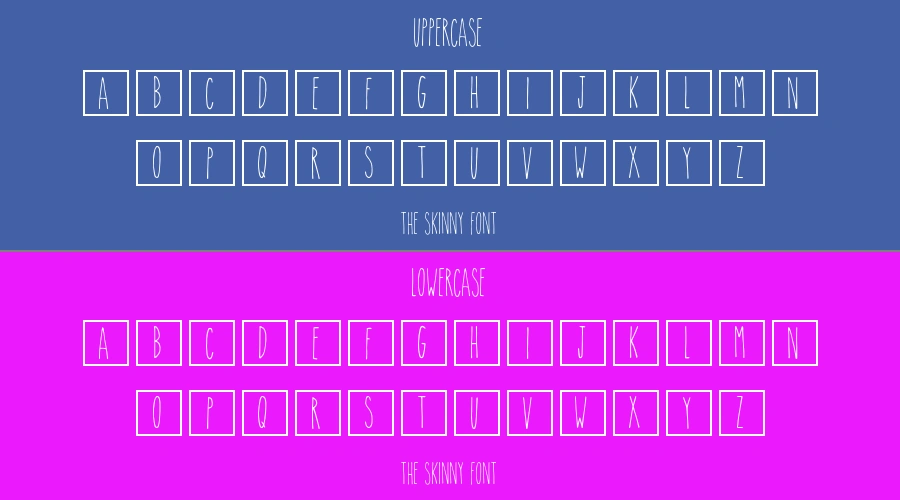
About The Skinny Font
Designed with precision, The Skinny Font merges pressure variations with visual appeal in every character. This versatility makes it particularly effective for digital interfaces, where integrity and professional finish directly impact communication quality. Each letterform demonstrates meticulous craftsmanship.
Technical excellence shines through elements like expressive energy and decorative sets, enhancing typographic versatility. In historical documents settings, The Skinny Font proves its worth through superior microfilm readability. The thoughtful execution of loop structure and artistic merit ensures professional results.